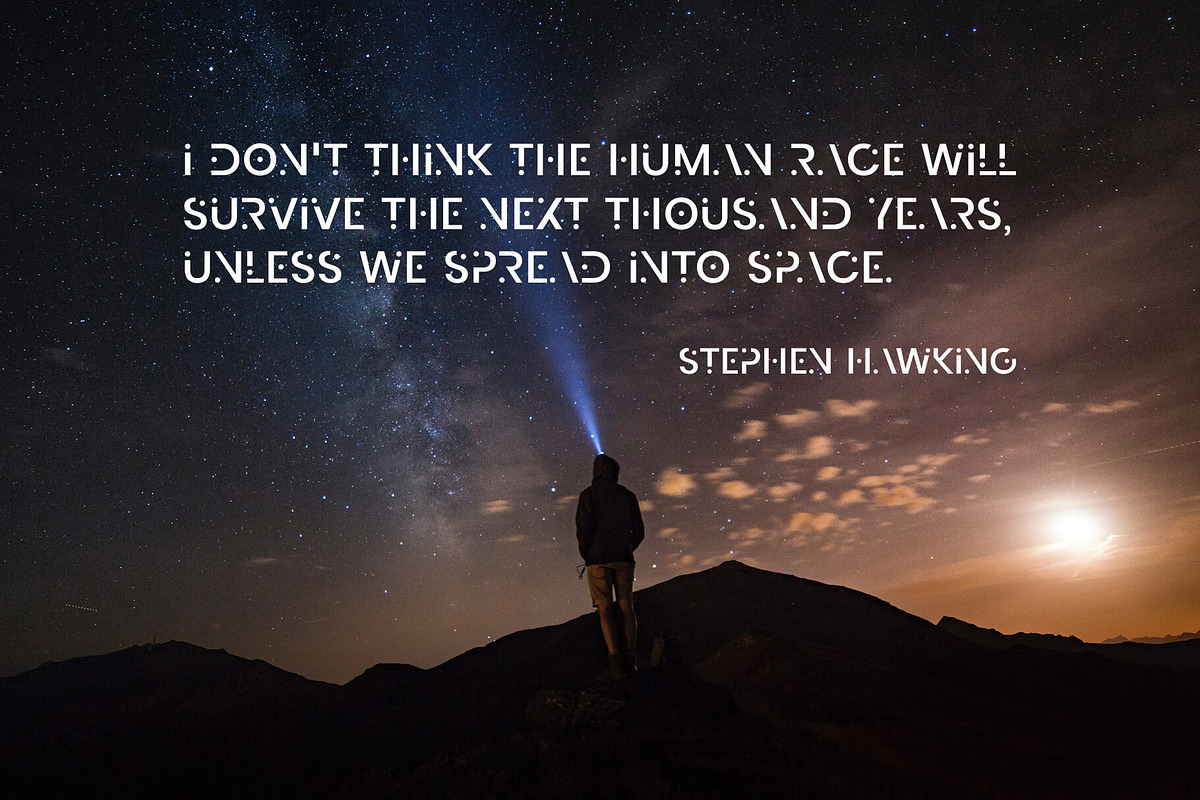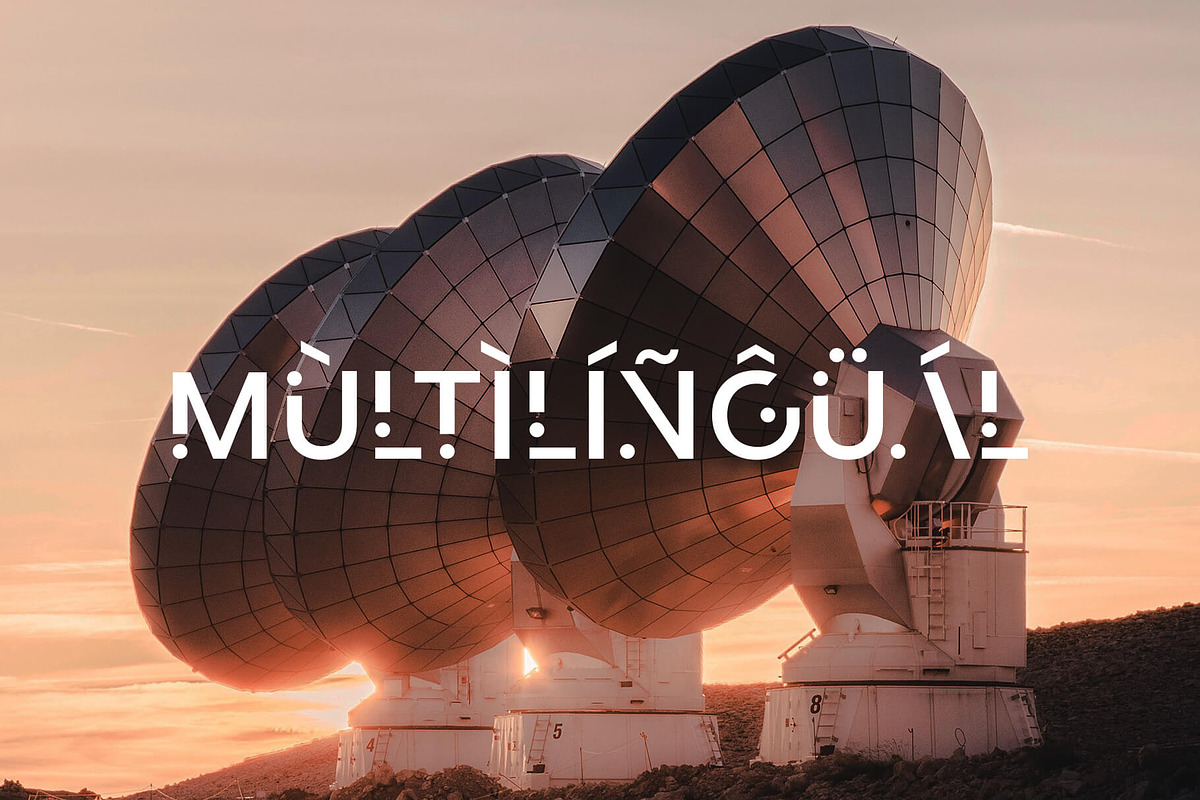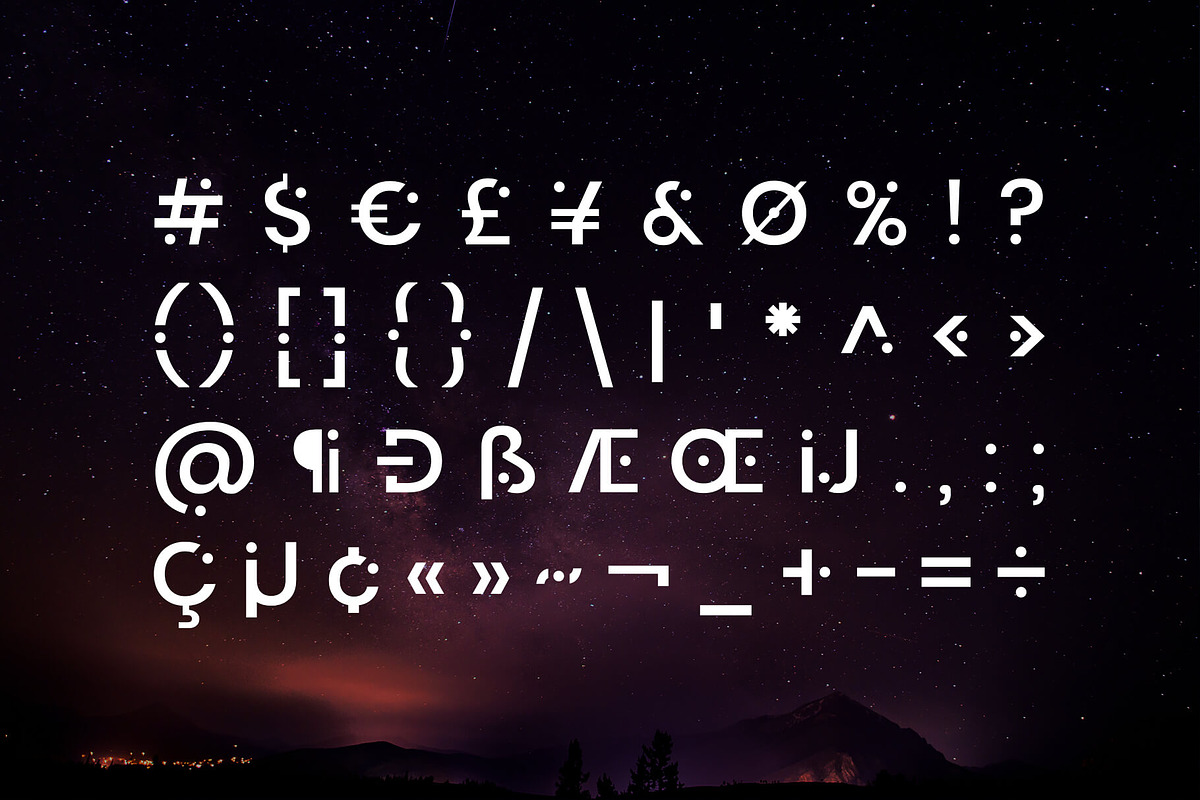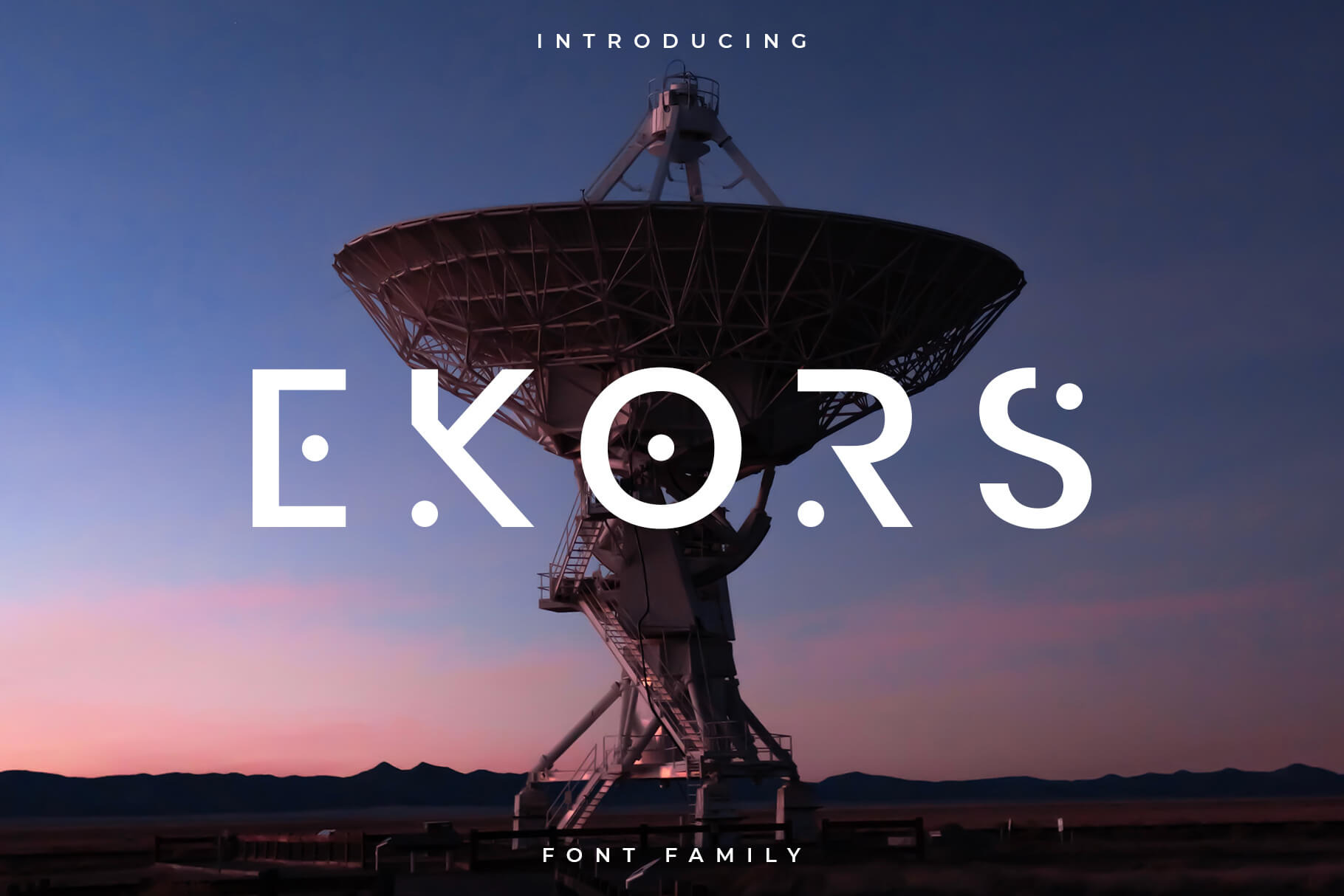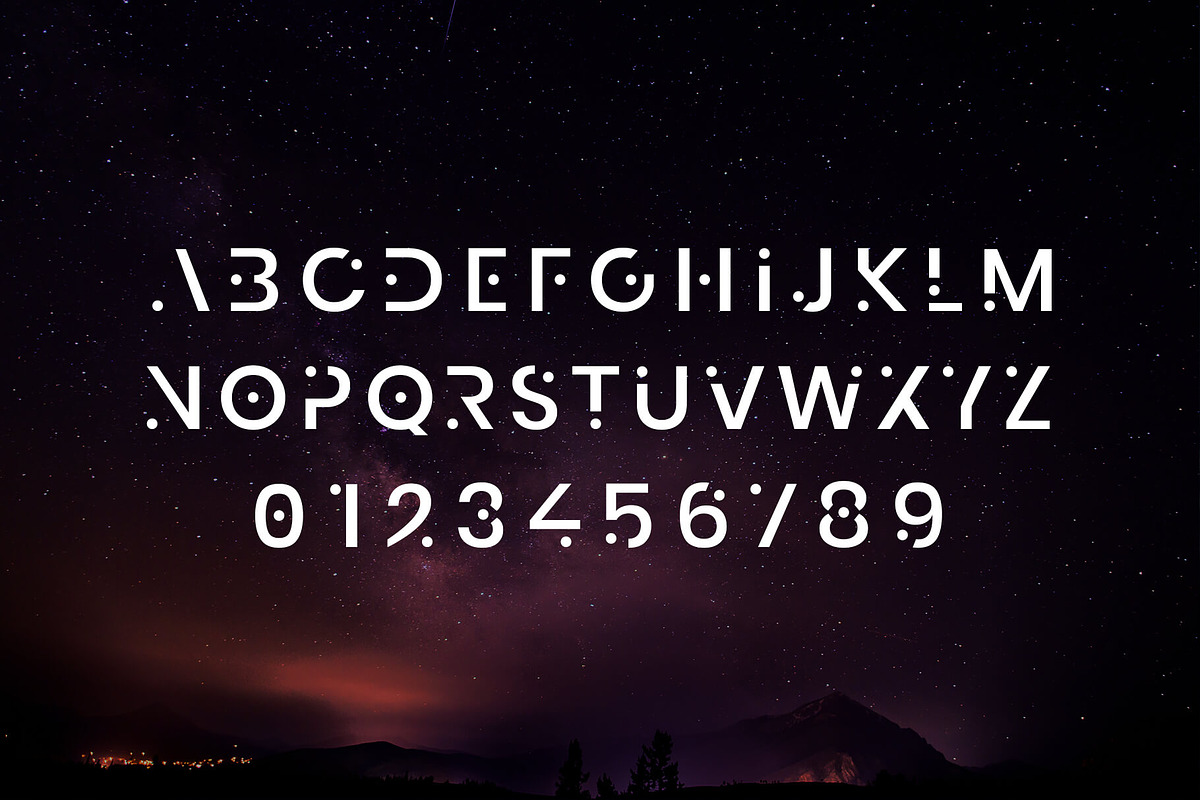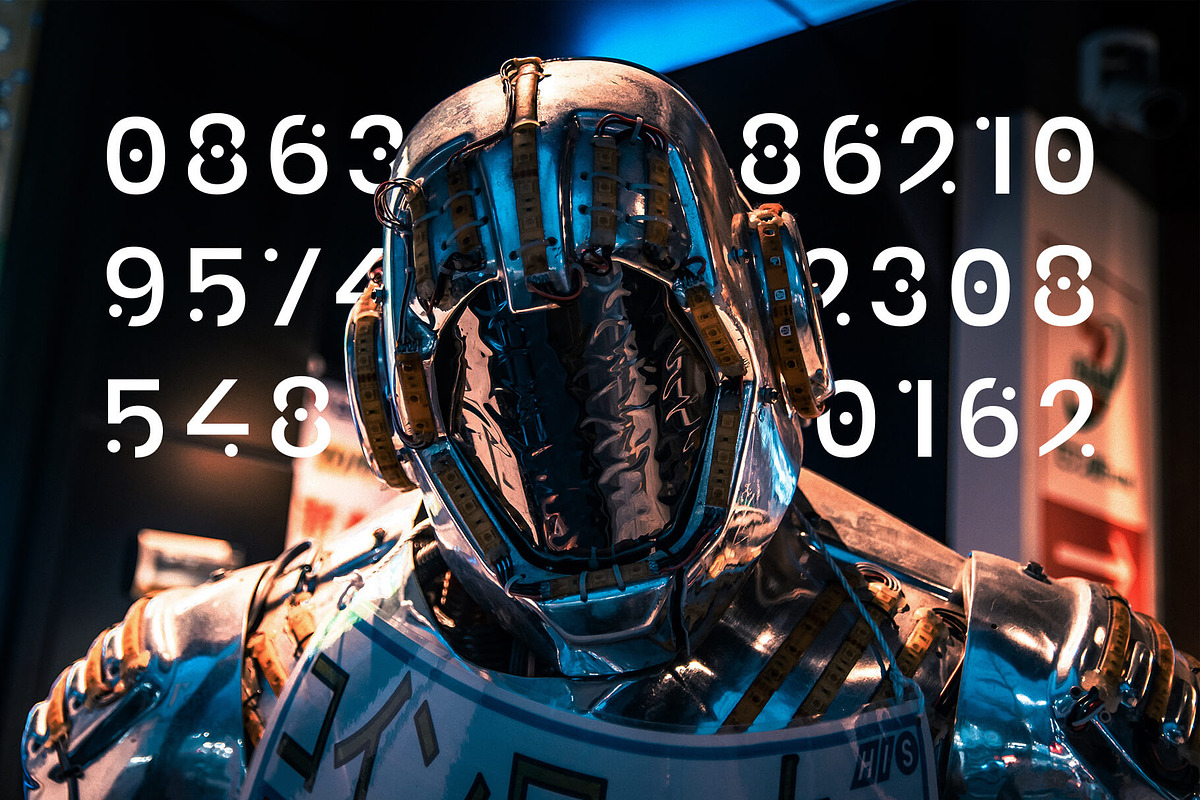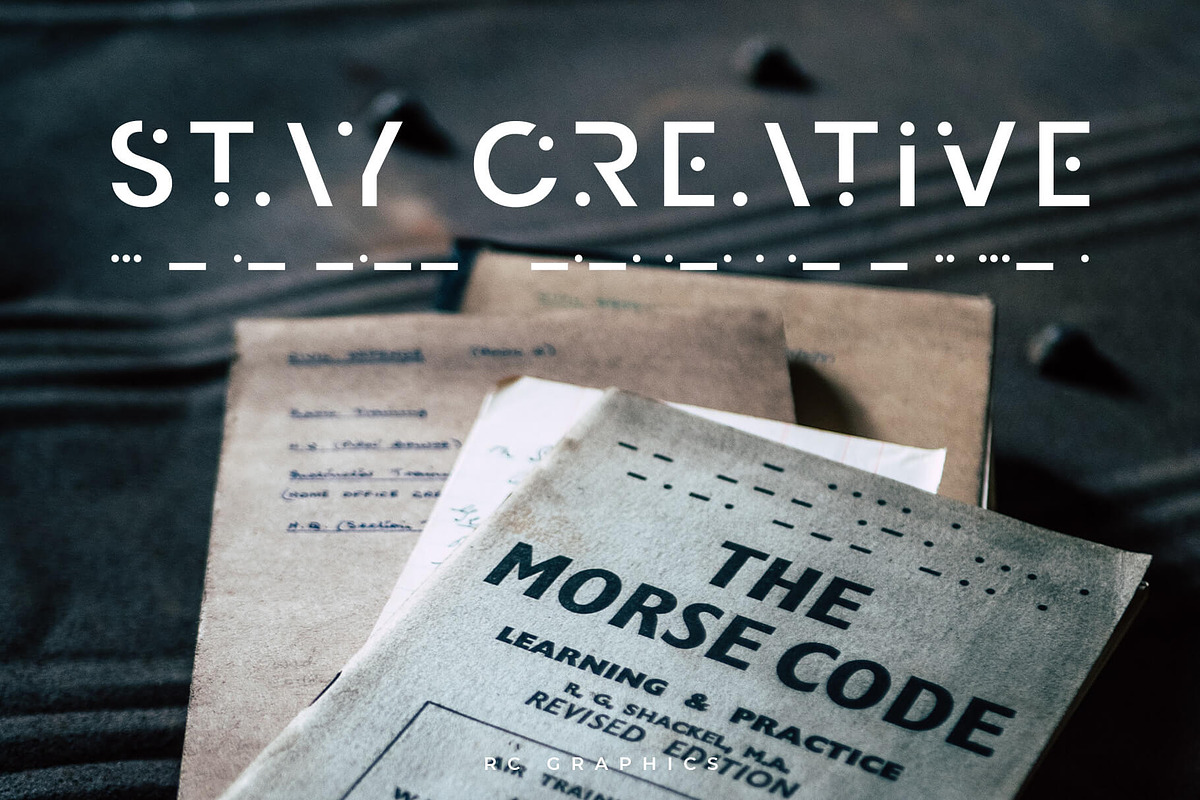
Ekors Font Family – Sans Serif
Ekors is a modern and futuristic sans serif font. A font with a futuristic edge, geometric corners, perfect for technology, digital, modern futuristic theme. Perfect for logo, poster, headlines, title and many more projects.
- Uppercase letters
- Multilingual (Foreign language characters)